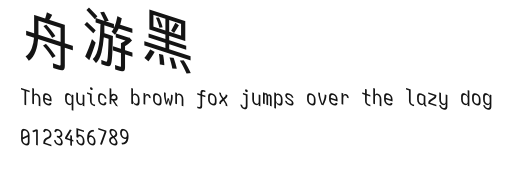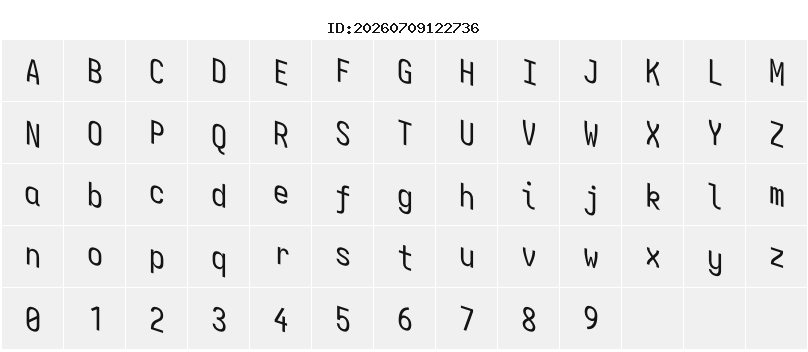
舟游黑 Preview
• Font Name: 舟游黑
• Font Style: 倾斜
• Full Font Name: 舟游斜黑
• Description: 1.https://github.com/welai Glow Sans SC Condensed Book 0.91 © 2020 Project Welai 2.http://be5invis.github.io/Iosevka Fixed Curly Regular 4.0.3 © Belleve Invis. 2015-2020
About 舟游黑.otf
舟游黑.otf is a modern, elegant sans-serif font designed for ultimate readability and visual harmony. Perfect for branding, headlines, web design, and print materials.